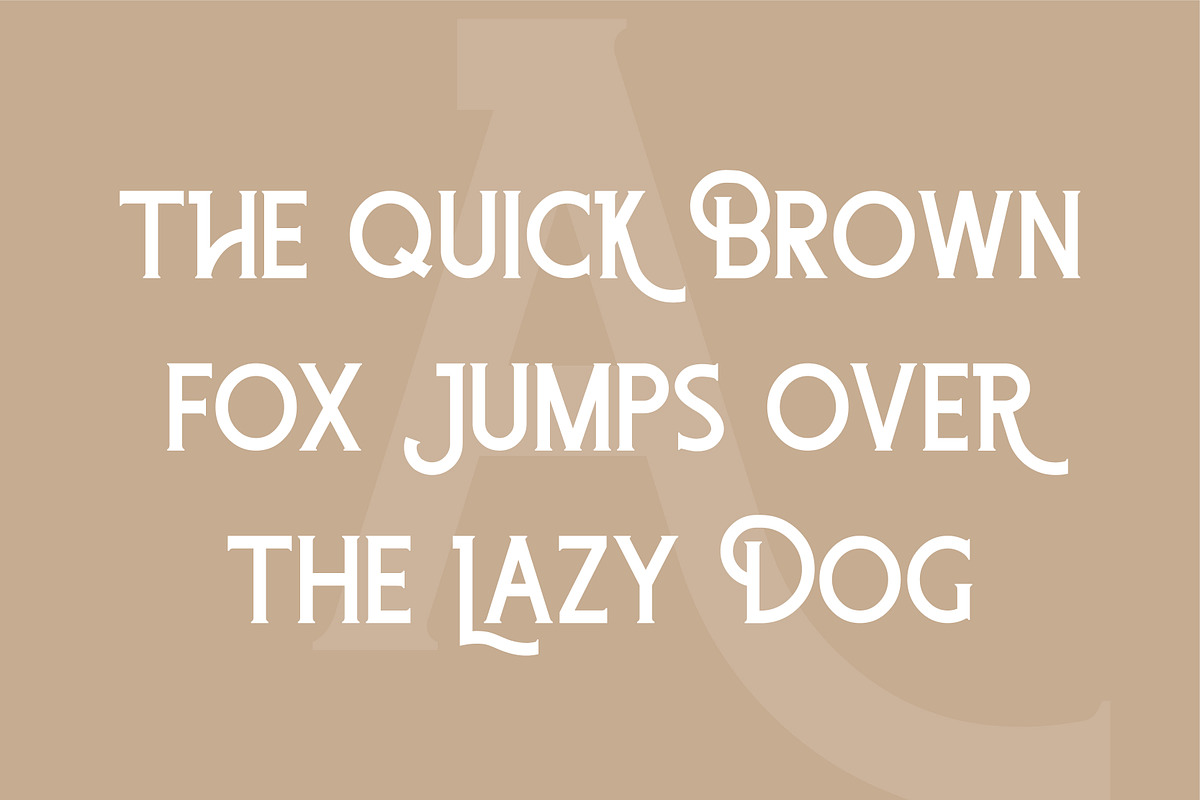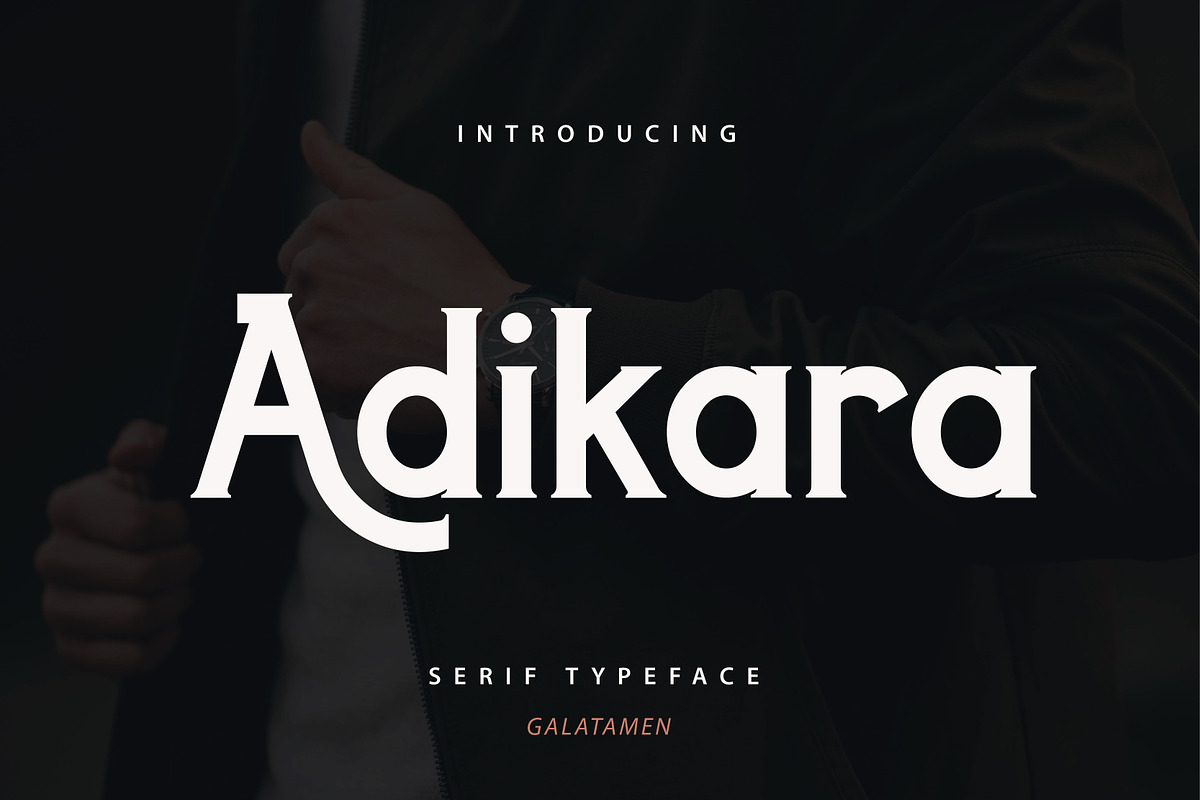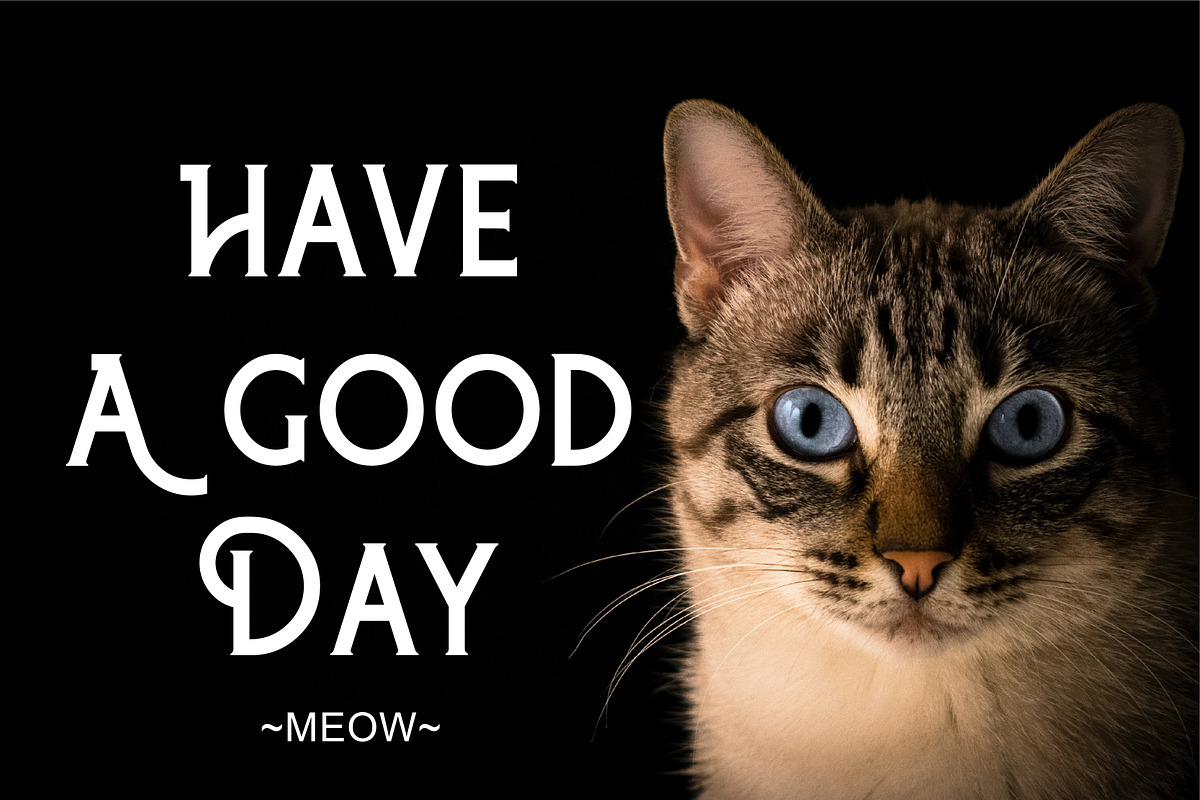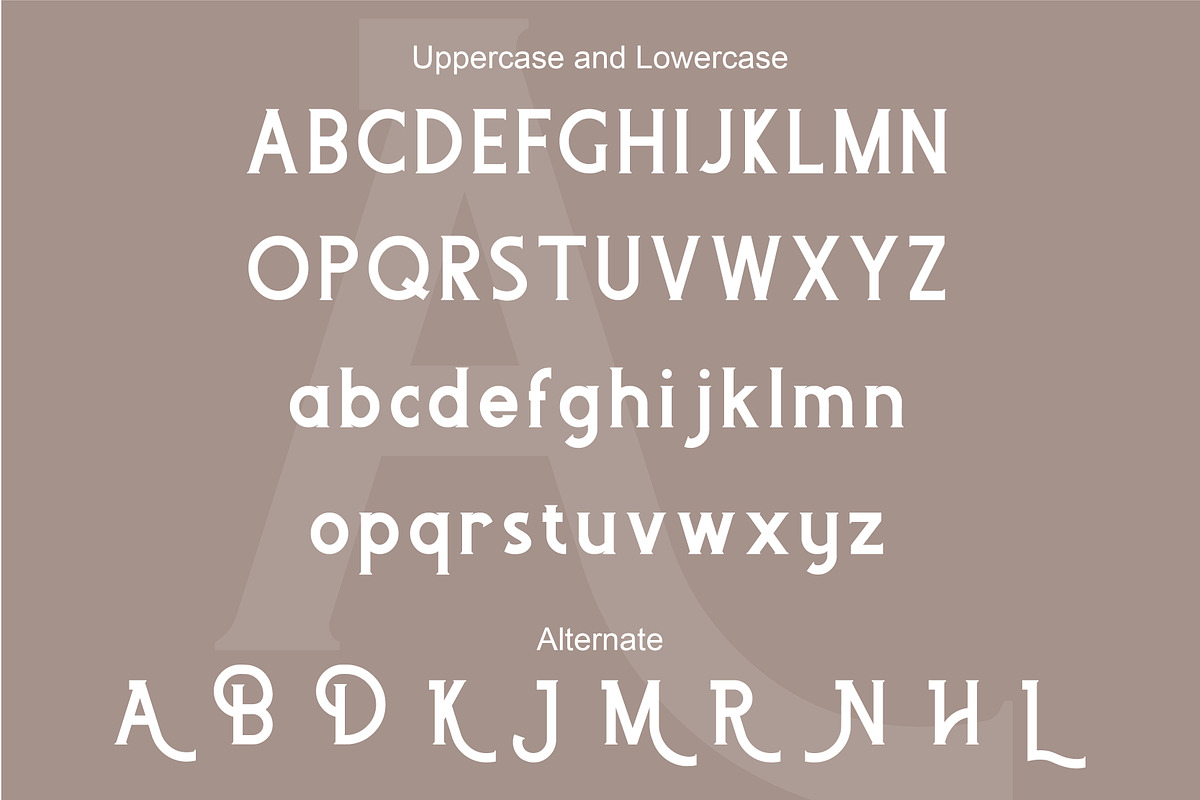
Adikara
Adikara is a bold and elegant serif font. Masterfully designed to become a true favorite, this font has the potential to bring each of your creative ideas to the highest level!